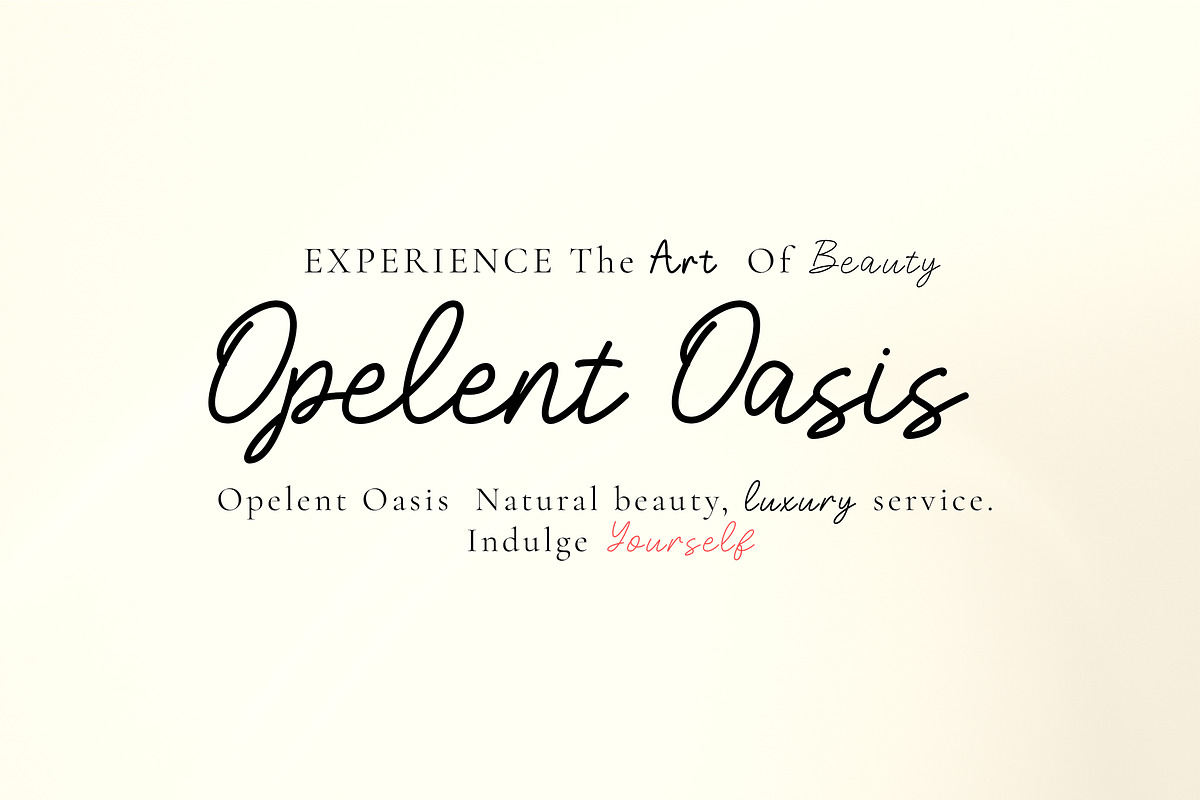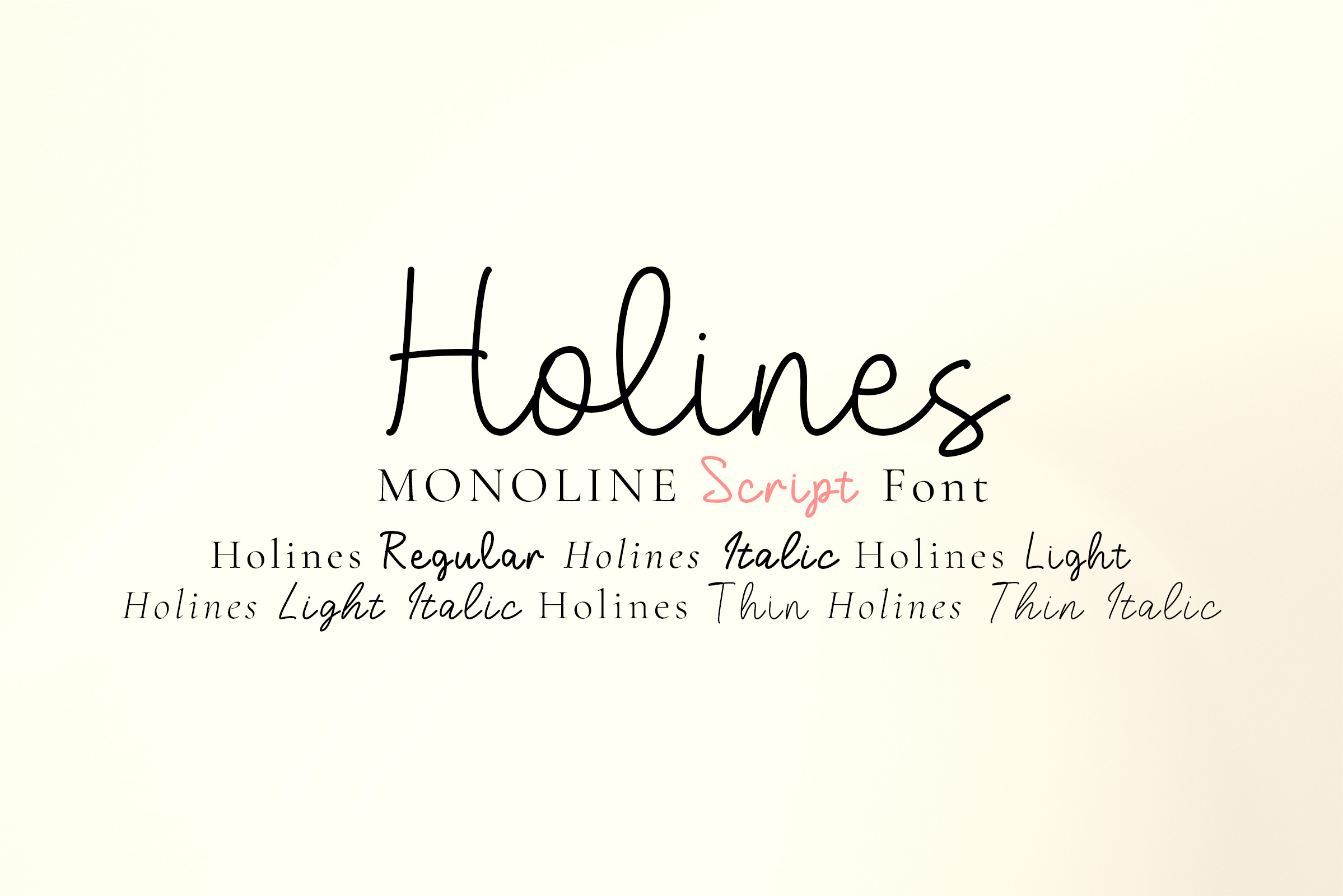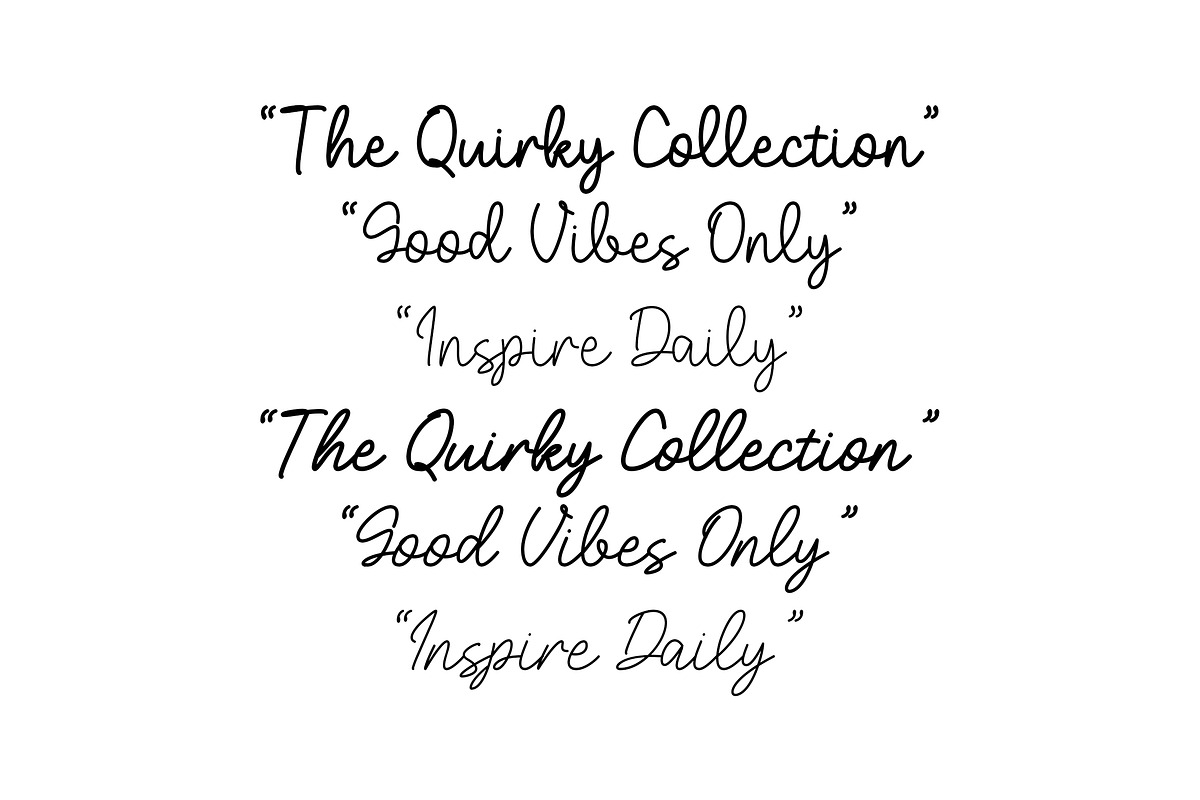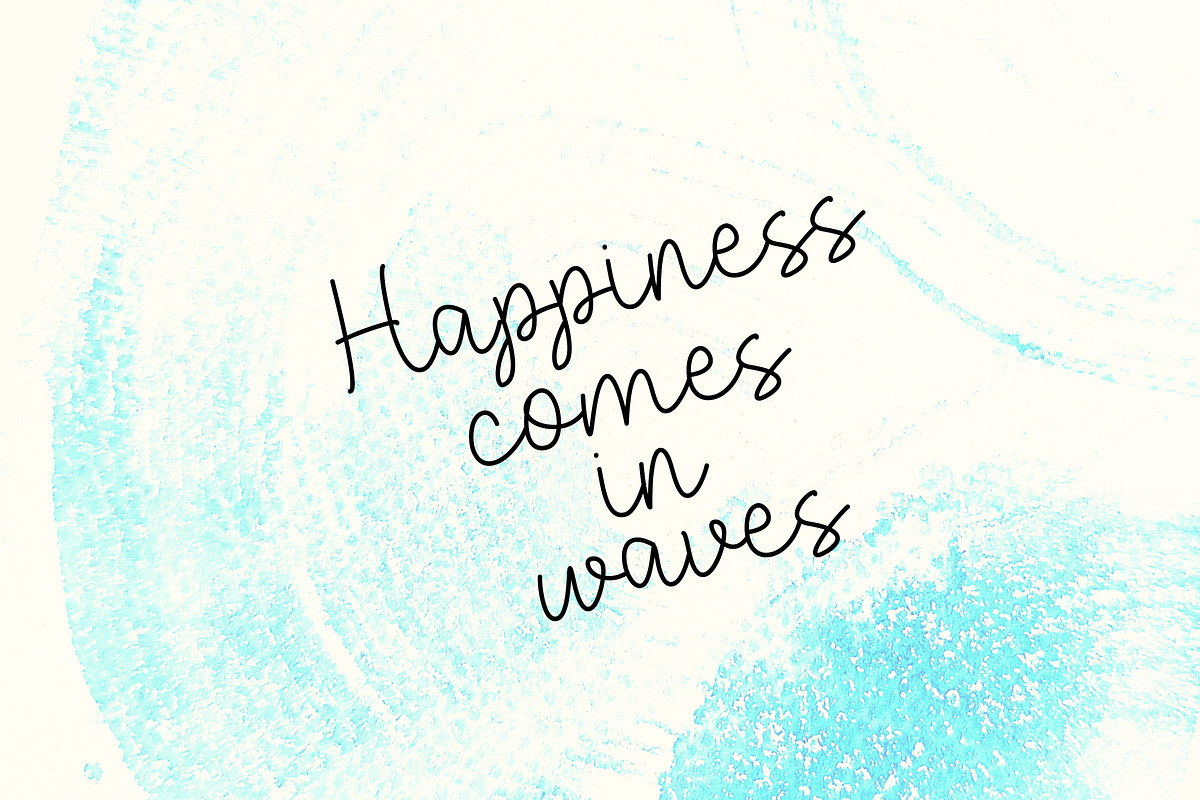
Holines a monoline script font
Holines a monoline handwritten font with simple and natural cursive. It comes in thin, light, regular, and also offers an oblique version with a more pronounced slant (italic). The availability of a variable font version further enhances its versatility.